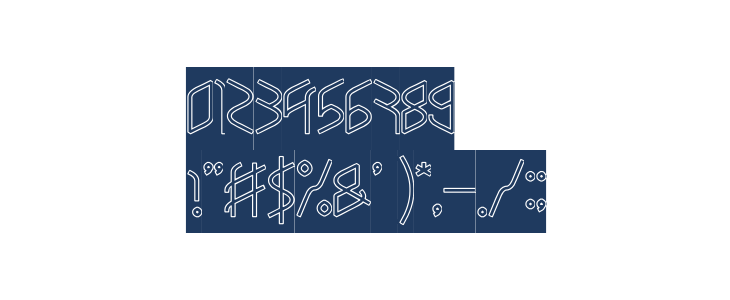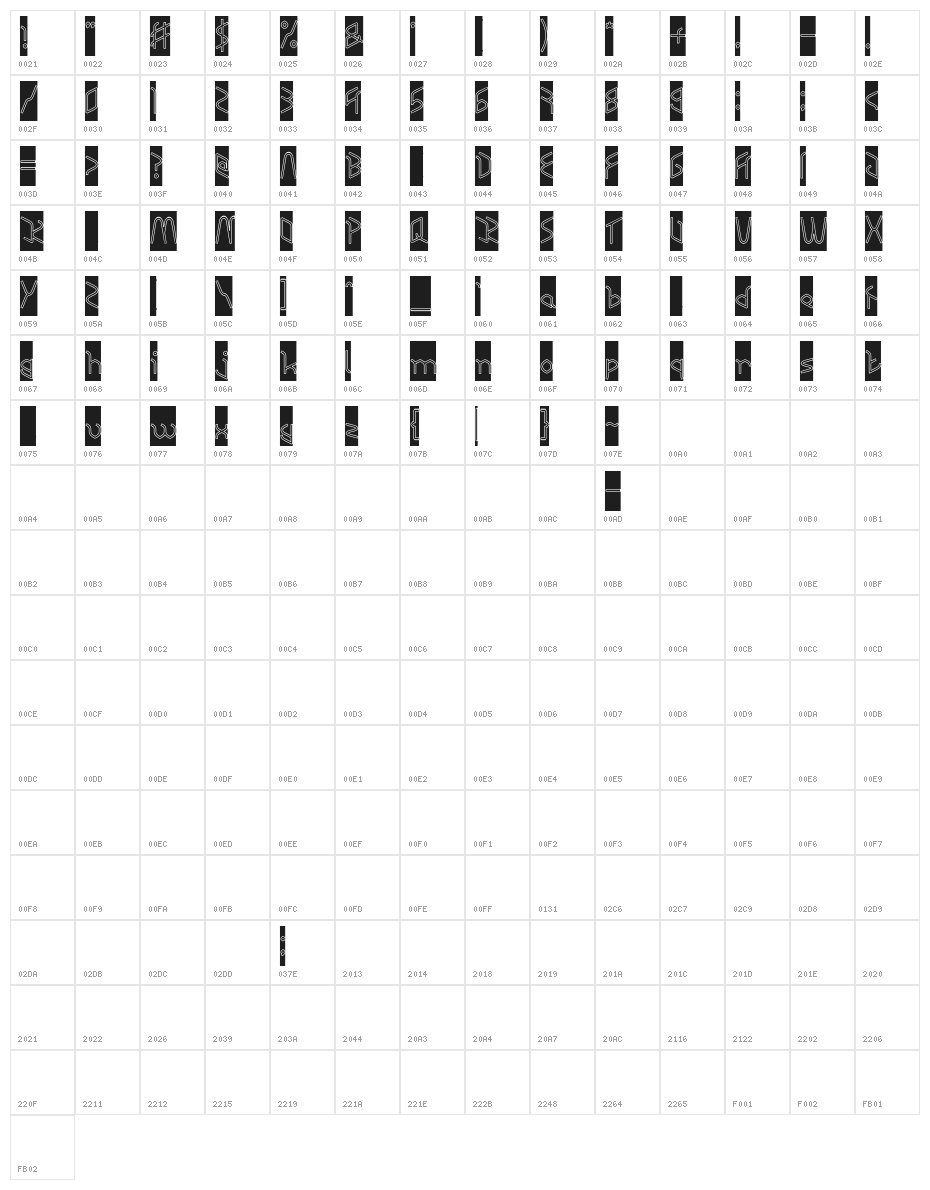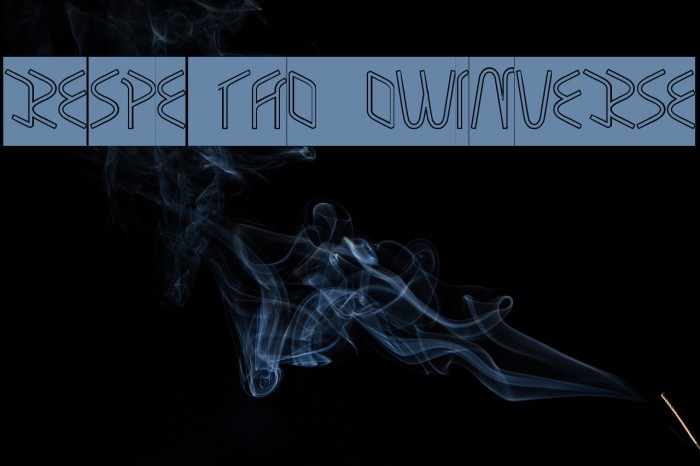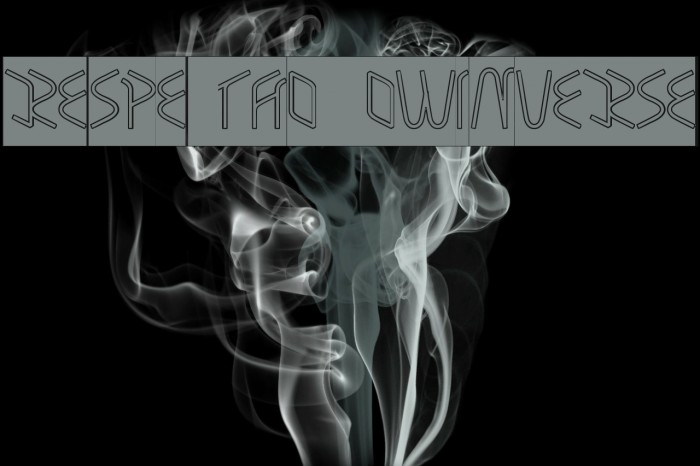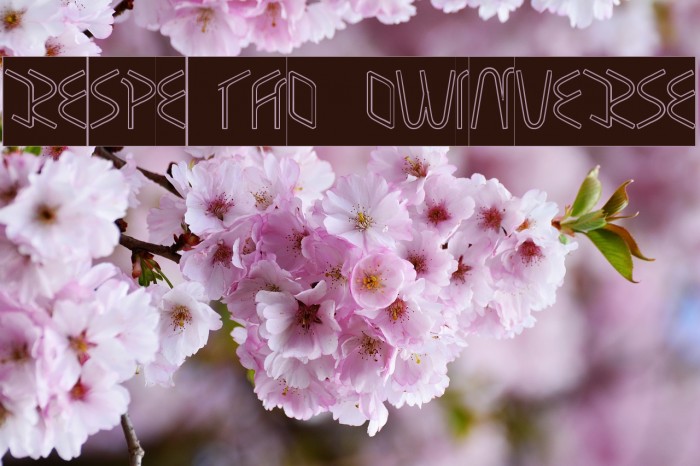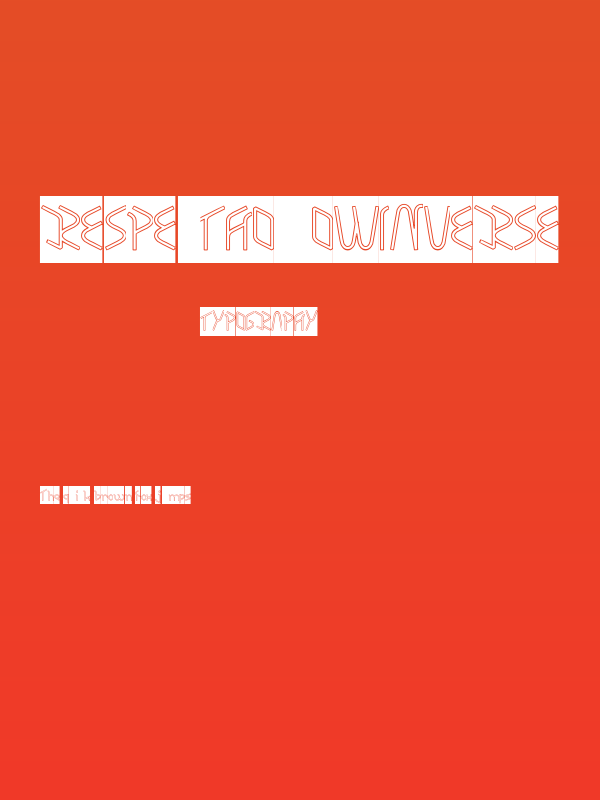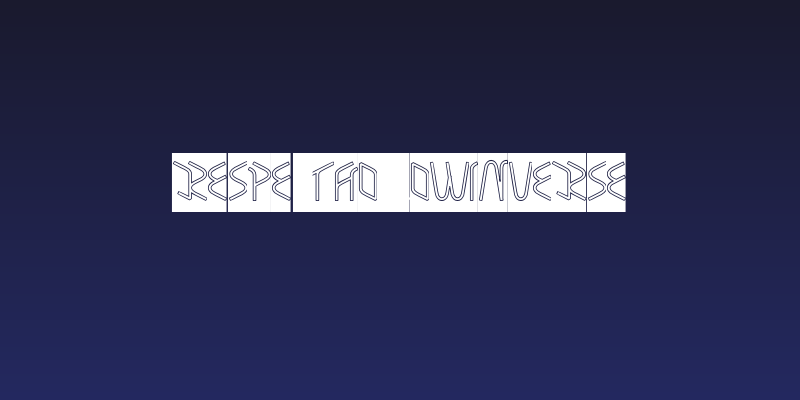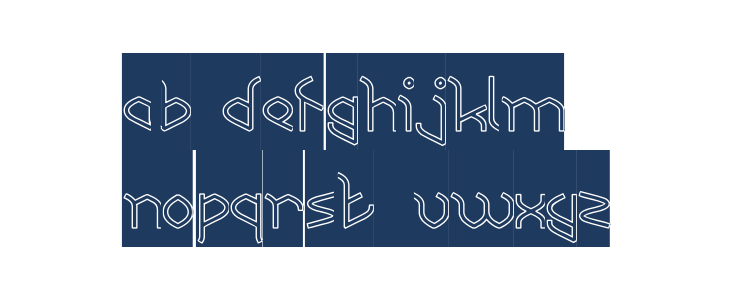
RESPECTHOLLOWINVERSE Font
RESPECTHOLLOWINVERSE Description
This font features a unique hollow design with inverse strokes, creating an eye-catching and modern aesthetic. The characters are outlined with a consistent thickness, giving them a geometric and structured appearance. The uppercase and lowercase letters maintain a uniform style, with angular and sharp edges that enhance the futuristic feel. Numbers and special characters follow the same design principles, ensuring cohesion across all elements. The font's distinct style makes it suitable for projects that require a bold and innovative look.
| Proposed Projects | Ideal for branding, logos, posters, and digital artwork that require a futuristic and standout appearance. |